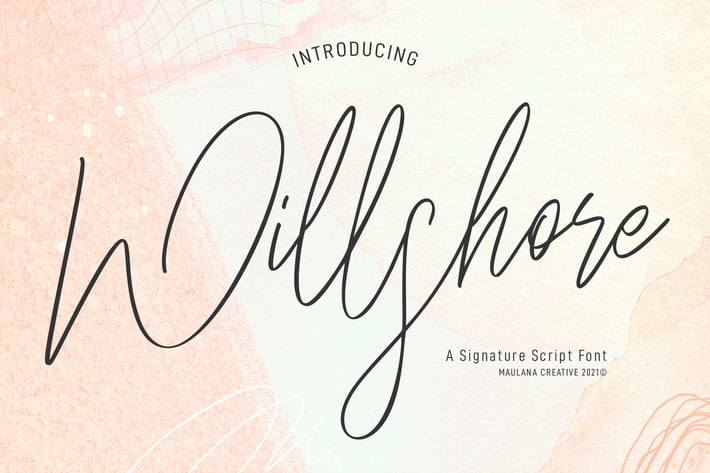
Willshore Signature Script Font
Willshore is a fancy feminine script font. With thin stroke, super slanted and Unique Upper and lower character with a bit of ligatures. To give you an extra creative work. Willshore font support multilingual more than 100+ language. This font is good for logo design, Social media, Movie Titles, Books Titles, a short text even a long text letter and good for your secondary text font with sans or serif. Make a stunning work with Willshore font.